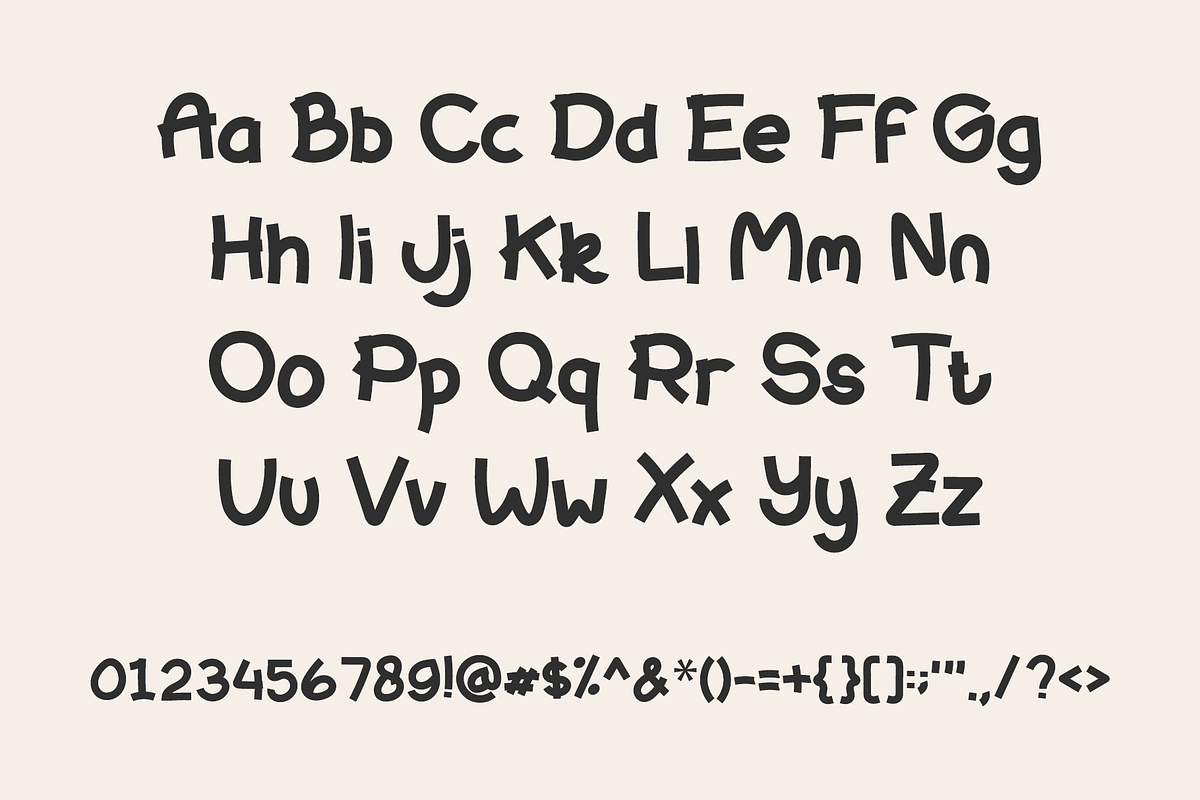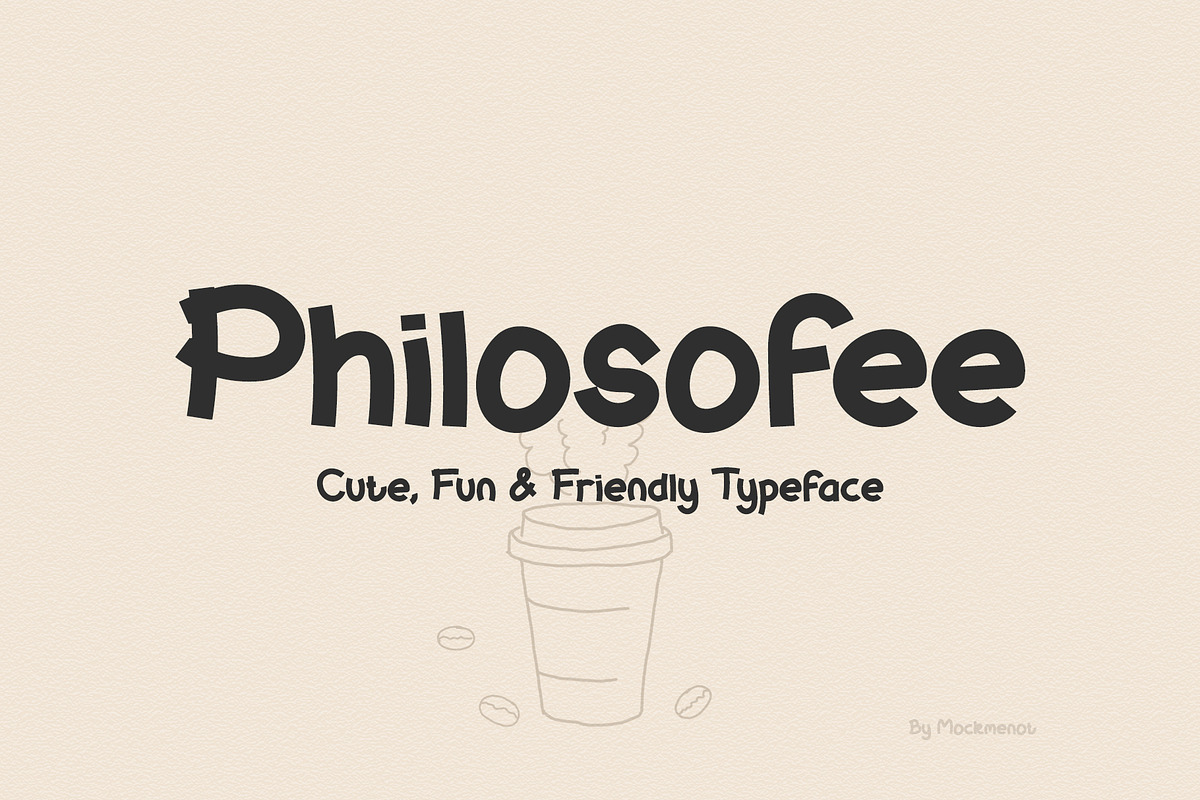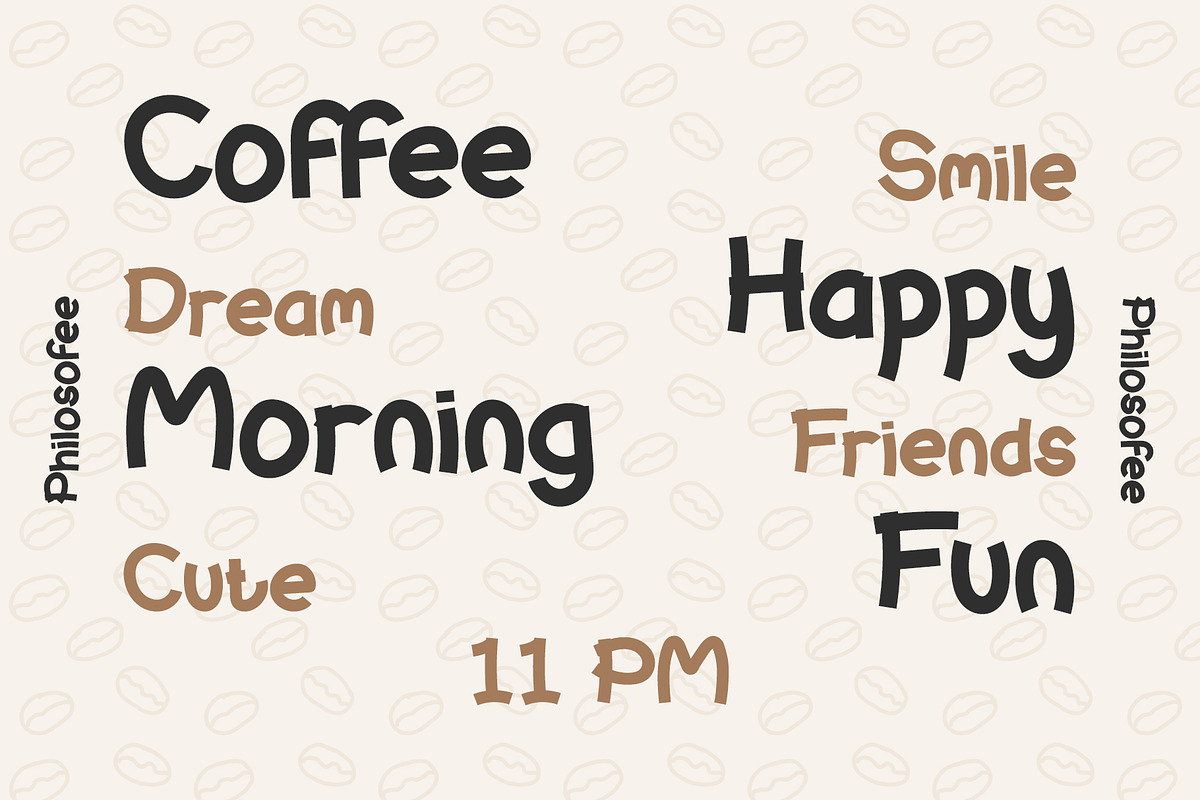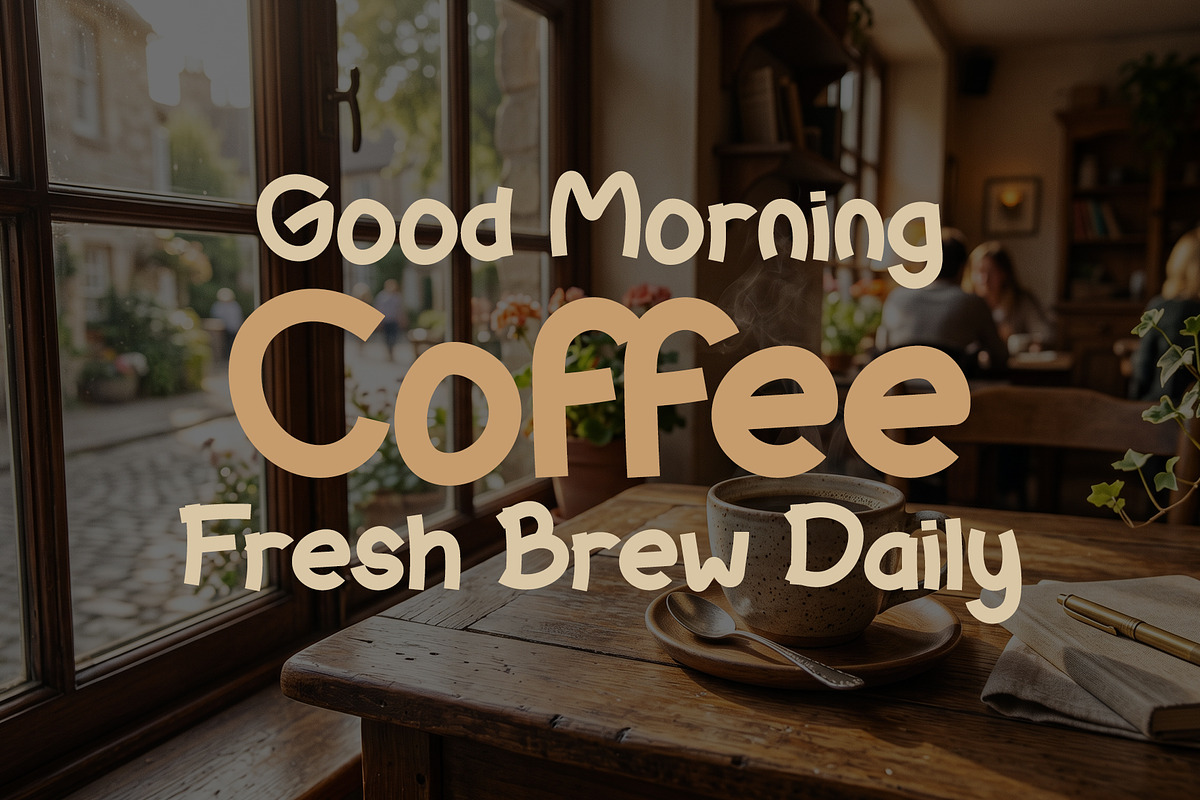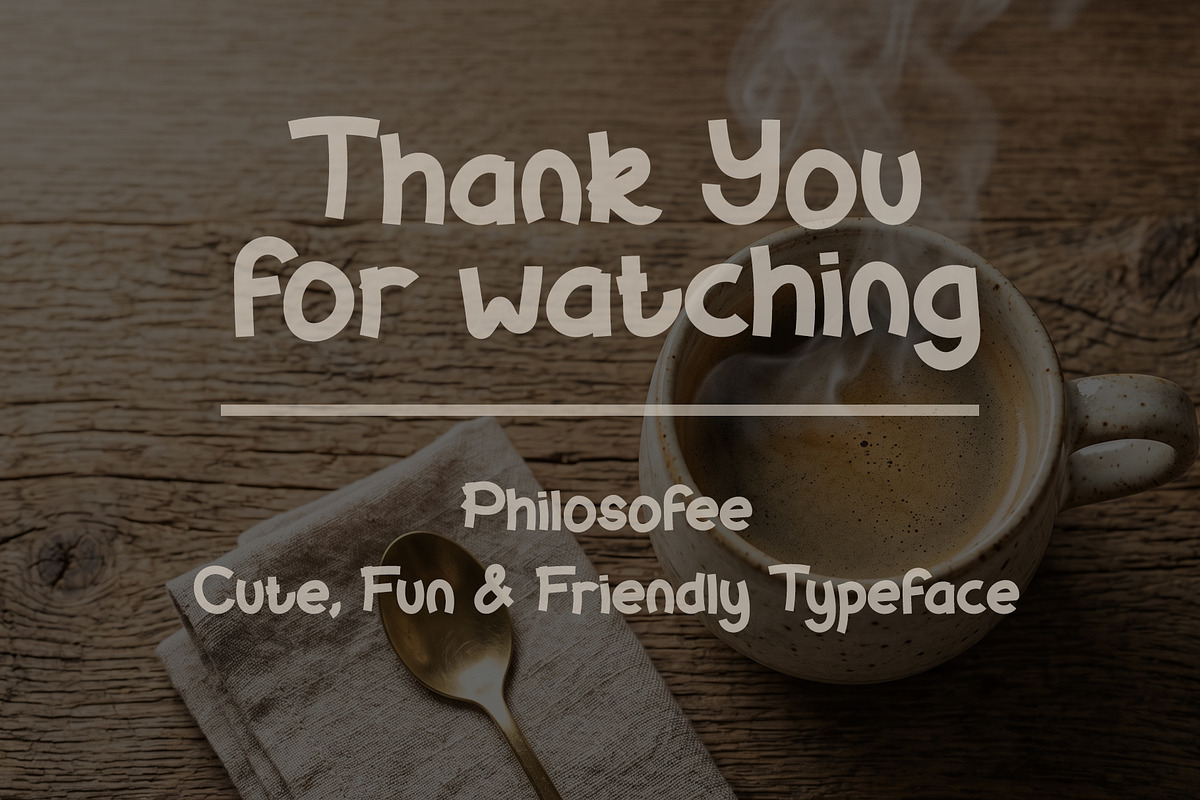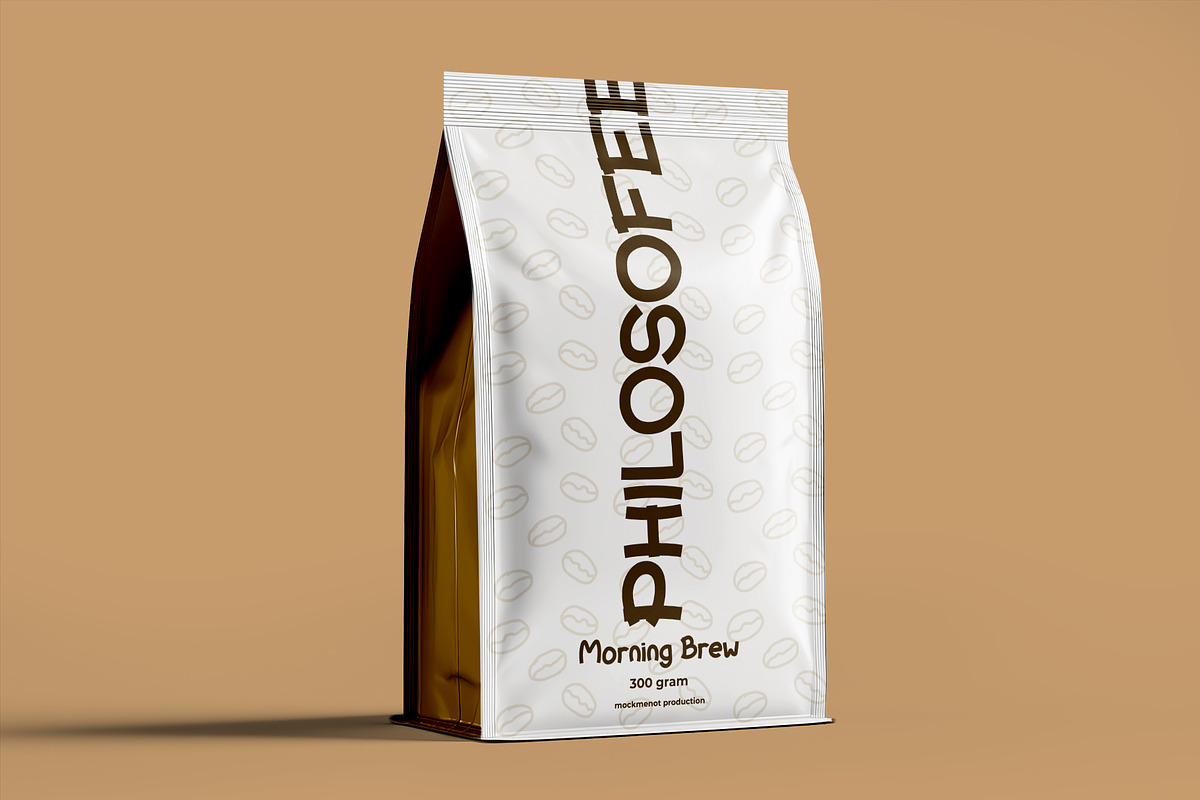
Philosofee – Cute Fun Display Font
Philosofee is a cute and playful display font with a fun handwritten style. Its rounded and friendly shapes make it perfect for a wide range of creative projects.
This font works great for logos, posters, packaging, t-shirts, stickers, kids designs, social media graphics, and branding projects.
Add a touch of fun and personality to your designs with Philosofee.
\\\\- Uppercase and Lowercase
\\\\- Numeral & Punctuation